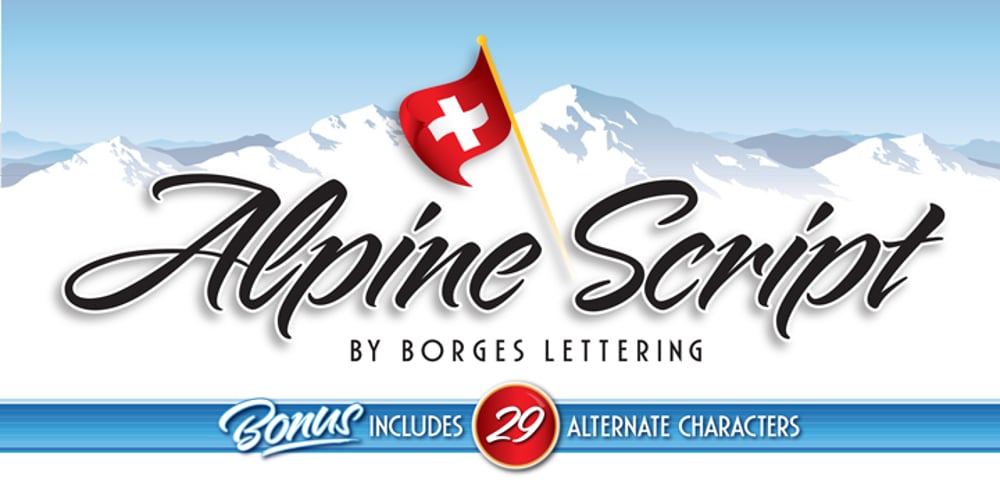
Alpine Script
Alpine Script font
Alpine Script Font Family was designed by Charles Borges de Oliveira and published by Borges Lettering. Alpine Script contains 1 styles and family package options. Get creative with the adventurous brush casual Alpine Script from Charles Borges de Oliveira. This stunning typeface contains 29 alternate characters waiting to be explored. Great for anything from signage to culinary packaging. Enjoy!